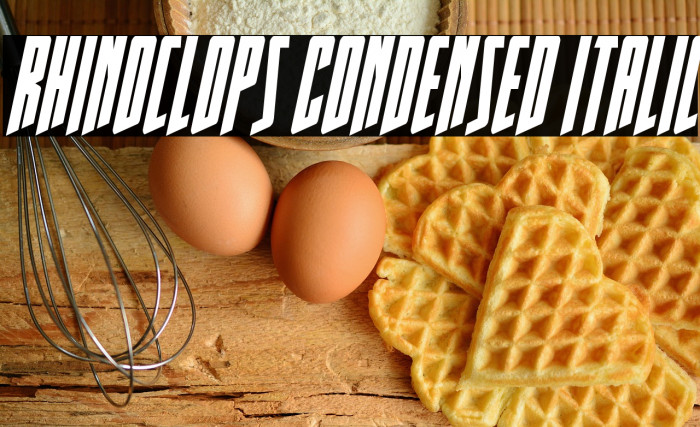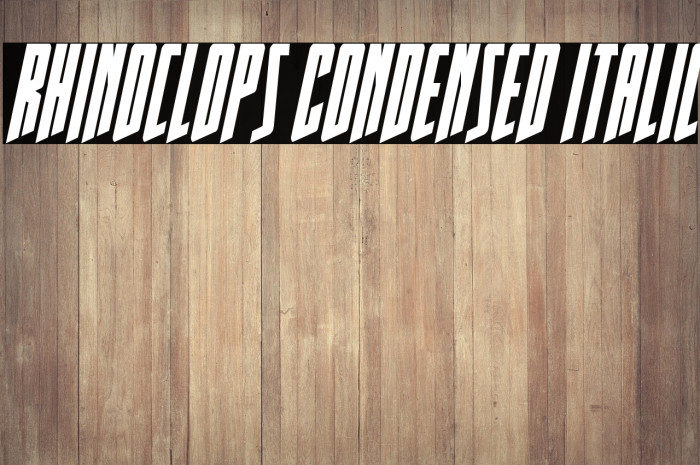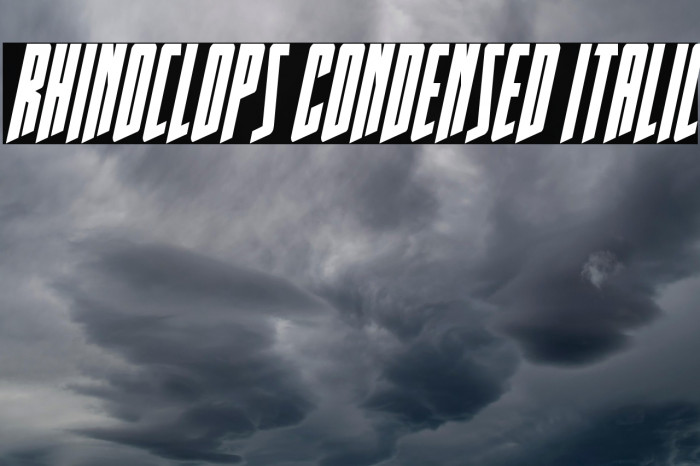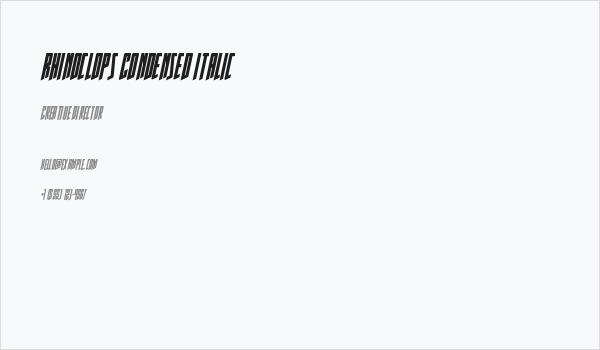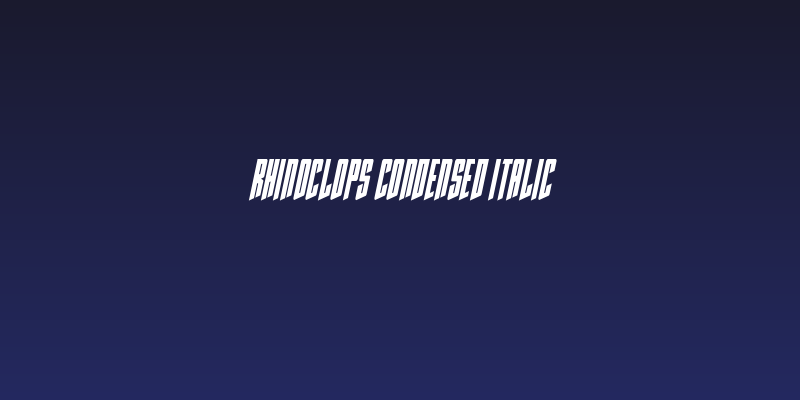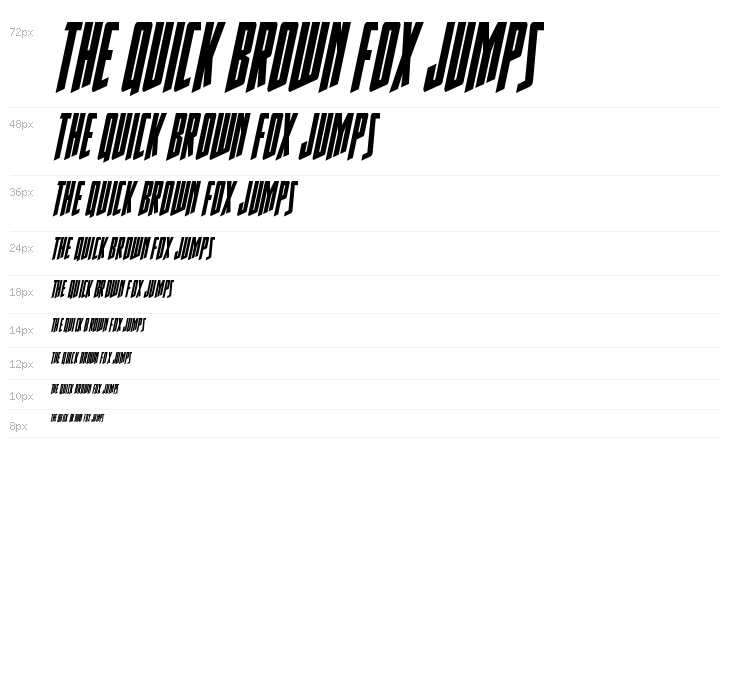
Rhinoclops Condensed Italic Font
Rhinoclops Condensed Italic Description
This font features a bold, condensed style with a distinct italic slant, giving it a dynamic and energetic appearance. The characters are tightly spaced, enhancing its compact and impactful look. The angular design of the letters adds a modern and edgy feel, making it suitable for attention-grabbing headlines. The high contrast between thick and thin strokes further emphasizes its boldness, while the sharp edges and geometric shapes contribute to its contemporary aesthetic. This font is ideal for projects that require a strong visual presence and a sense of movement.